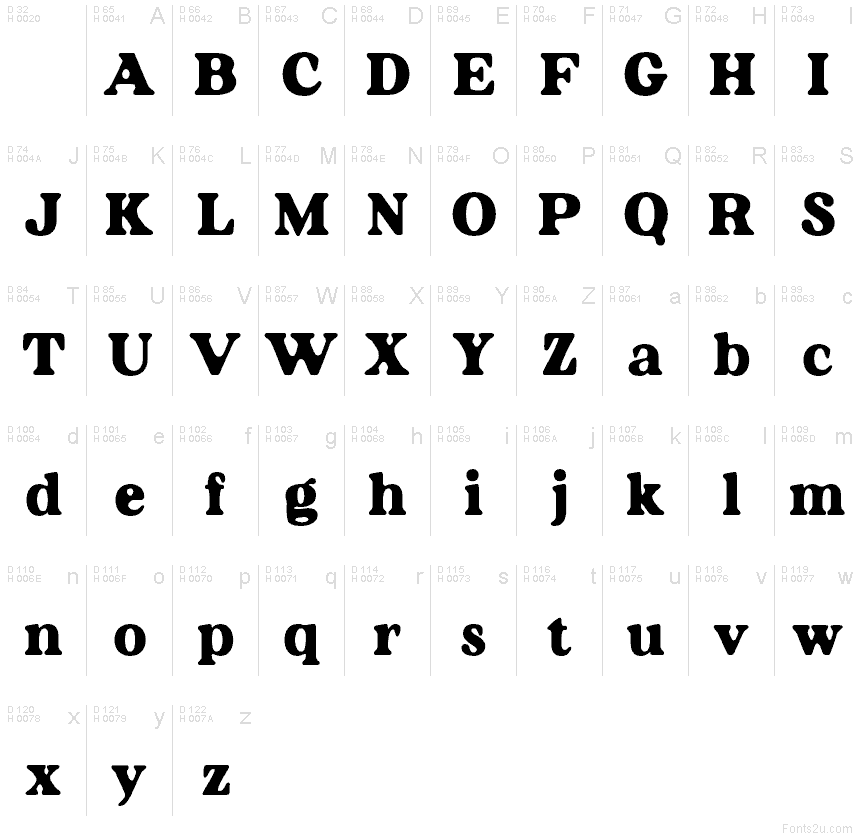
CS Maylie Drawn font by Craft Supply Co. is a free bold hand-drawn serif display font. Part of the CS Maylie family, it leans into soft, inky edges and plump ball terminals that feel carved rather than coded—chunky strokes, gentle curves, and a cozy rhythm that reads warm and confident. The forms have just enough wobble to feel human, while the weight and contrast keep headlines strong and legible.
Using CS Maylie Drawn, you’ll get standout results on boutique logos, bakery and café menus, beauty packaging, poster headlines, event flyers, and social media graphics. This free font shines when set large, with a touch of breathing room in the tracking. Pair it with a clean geometric sans for body copy to let the handcrafted serifs do the talking.